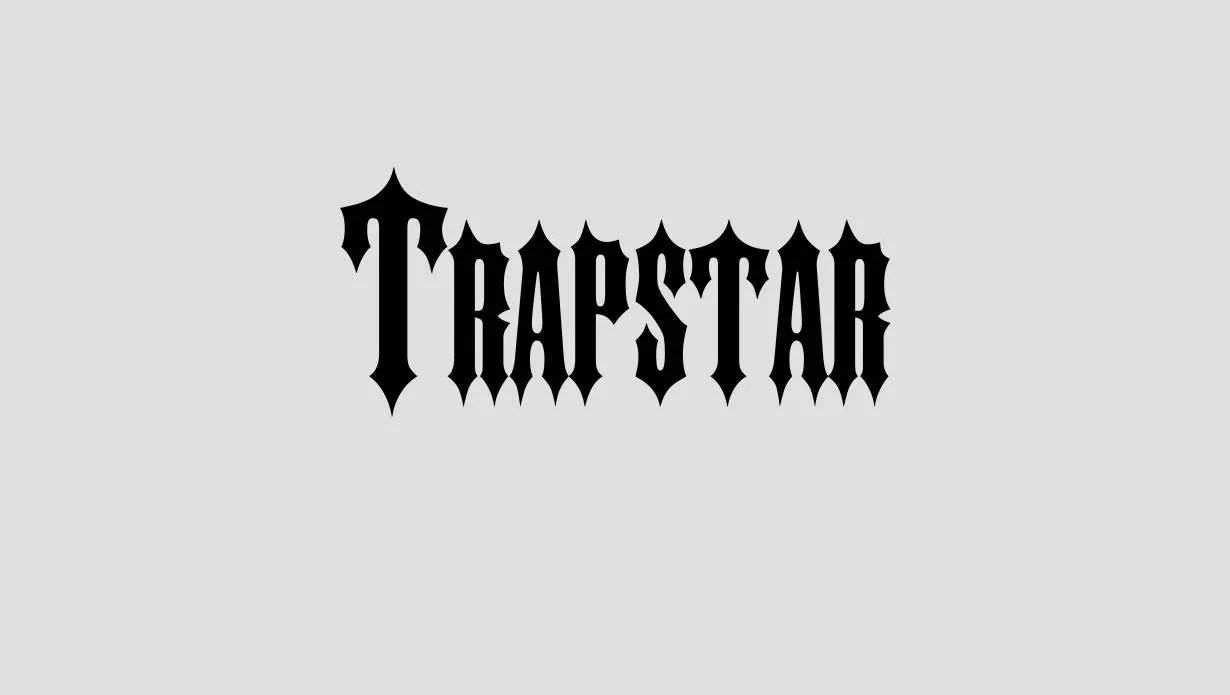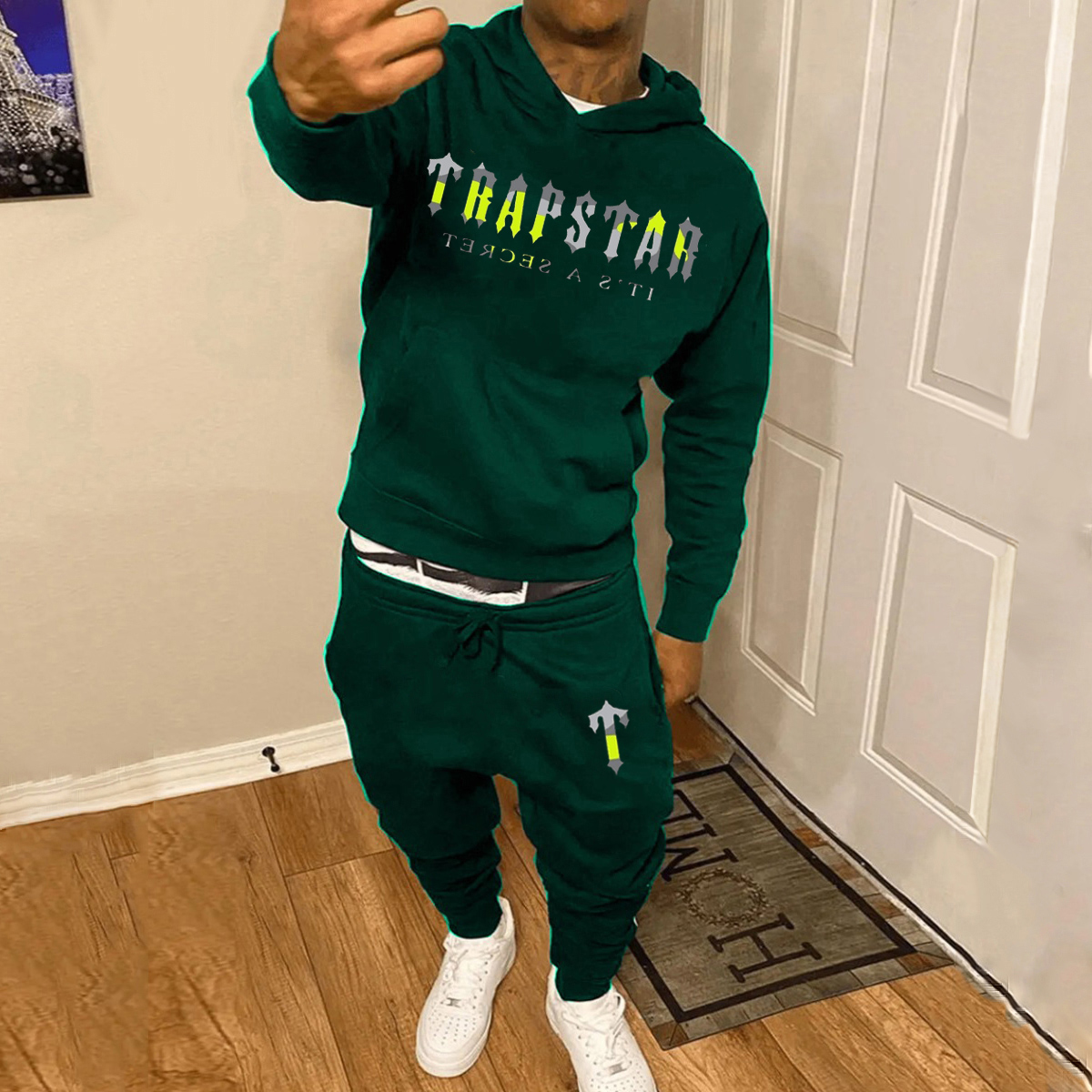
Trapstar Font Download . Yup it’s the trapstar aaaaaaaaaa. Browse by alphabetical listing, by style, by author or by popularity. You can edit it to create your. It takes its name from trap music, a subgenre of rap that originated in the southern united states. Perfect for many graphic and visual projects, trapstar. Trapstar is a streetwear brand that uses ironwood font for its logo. Try the best trapstar font generator & convert your text into images with many styles to choose from. This text font was made using instafonts.io. Archive of freely downloadable fonts. Browse by alphabetical listing, by style, by author or by popularity. Find out how to download ironwood or judas caps, two free fonts that resemble trapstar, and see other similar. Download trapstar font font free on fontbolt. For designers requiring a new, modern font that speaks volumes, trapstar font provides bold lines and geometric forms with character. The font used for the logo looks like.
Archive of freely downloadable fonts. Yup it’s the trapstar aaaaaaaaaa. Browse by alphabetical listing, by style, by author or by popularity. Archive of freely downloadable fonts. This text font was made using instafonts.io. Browse by alphabetical listing, by style, by author or by popularity. Trapstar is a streetwear brand that uses ironwood font for its logo. Download trapstar font font free on fontbolt. For designers requiring a new, modern font that speaks volumes, trapstar font provides bold lines and geometric forms with character. You can edit it to create your.
Trapstar Font Download It takes its name from trap music, a subgenre of rap that originated in the southern united states. Download trapstar font font free on fontbolt. Try the best trapstar font generator & convert your text into images with many styles to choose from. Browse by alphabetical listing, by style, by author or by popularity. You can edit it to create your. For designers requiring a new, modern font that speaks volumes, trapstar font provides bold lines and geometric forms with character. Browse by alphabetical listing, by style, by author or by popularity. The font used for the logo looks like. Archive of freely downloadable fonts. It takes its name from trap music, a subgenre of rap that originated in the southern united states. Yup it’s the trapstar aaaaaaaaaa. This text font was made using instafonts.io. Perfect for many graphic and visual projects, trapstar. Find out how to download ironwood or judas caps, two free fonts that resemble trapstar, and see other similar. Trapstar is a streetwear brand that uses ironwood font for its logo.
Trapstar Font Alphabet Trapstar Font Download Yup it’s the trapstar aaaaaaaaaa. Perfect for many graphic and visual projects, trapstar. Browse by alphabetical listing, by style, by author or by popularity. Trapstar is a streetwear brand that uses ironwood font for its logo. Browse by alphabetical listing, by style, by author or by popularity. Download trapstar font font free on fontbolt. This text font was made using. Trapstar Font Download.
trapstar style text png Stock Illustration Adobe Stock Trapstar Font Download You can edit it to create your. Perfect for many graphic and visual projects, trapstar. Browse by alphabetical listing, by style, by author or by popularity. It takes its name from trap music, a subgenre of rap that originated in the southern united states. Browse by alphabetical listing, by style, by author or by popularity. Find out how to download. Trapstar Font Download.
Trapstar Alphabet Trapstar Font Download You can edit it to create your. Find out how to download ironwood or judas caps, two free fonts that resemble trapstar, and see other similar. Browse by alphabetical listing, by style, by author or by popularity. It takes its name from trap music, a subgenre of rap that originated in the southern united states. The font used for the. Trapstar Font Download.
Trapstar Font and Logo Free Download FontSwan Trapstar Font Download Yup it’s the trapstar aaaaaaaaaa. Download trapstar font font free on fontbolt. Browse by alphabetical listing, by style, by author or by popularity. The font used for the logo looks like. Archive of freely downloadable fonts. Perfect for many graphic and visual projects, trapstar. Trapstar is a streetwear brand that uses ironwood font for its logo. You can edit it. Trapstar Font Download.
Trapstar Wallpapers Top Free Trapstar Backgrounds WallpaperAccess Trapstar Font Download Yup it’s the trapstar aaaaaaaaaa. You can edit it to create your. Browse by alphabetical listing, by style, by author or by popularity. It takes its name from trap music, a subgenre of rap that originated in the southern united states. The font used for the logo looks like. Download trapstar font font free on fontbolt. Find out how to. Trapstar Font Download.
Premium Vector Abstract Hip Hop Hand Written Urban Graffiti Style Trapstar Font Download Trapstar is a streetwear brand that uses ironwood font for its logo. Yup it’s the trapstar aaaaaaaaaa. The font used for the logo looks like. It takes its name from trap music, a subgenre of rap that originated in the southern united states. Browse by alphabetical listing, by style, by author or by popularity. Try the best trapstar font generator. Trapstar Font Download.